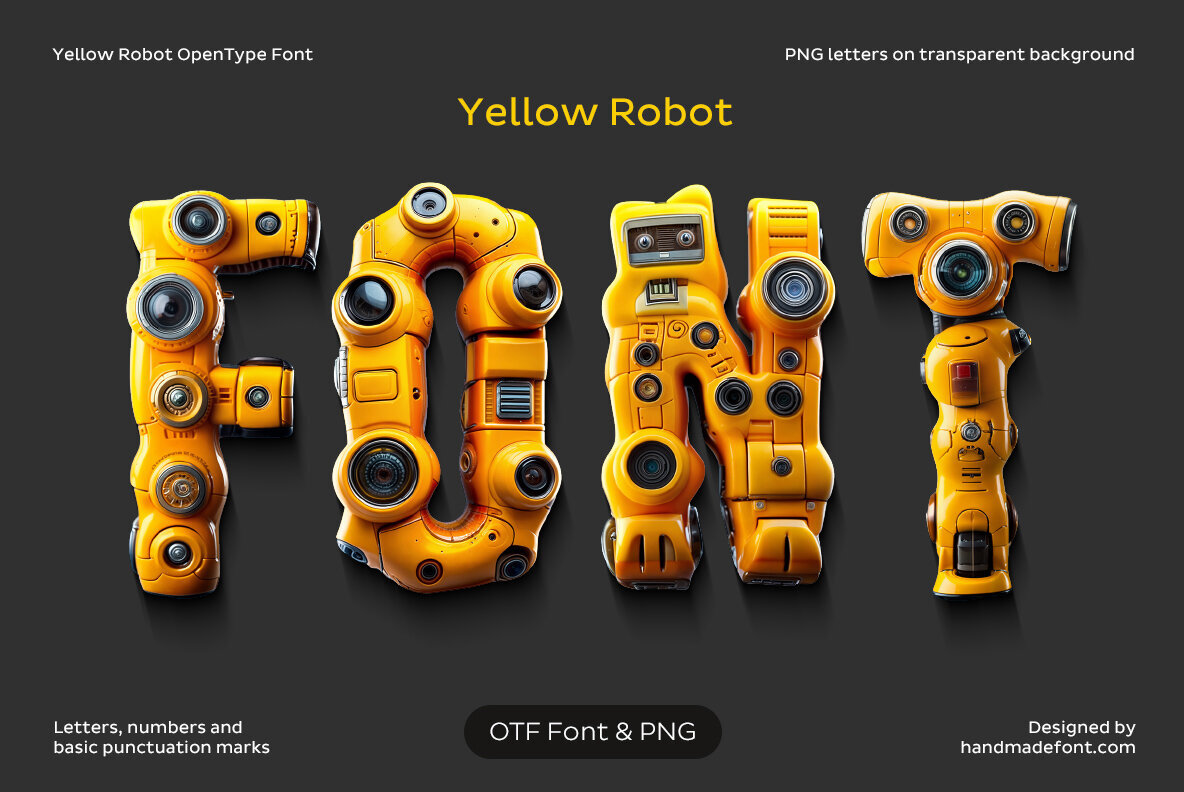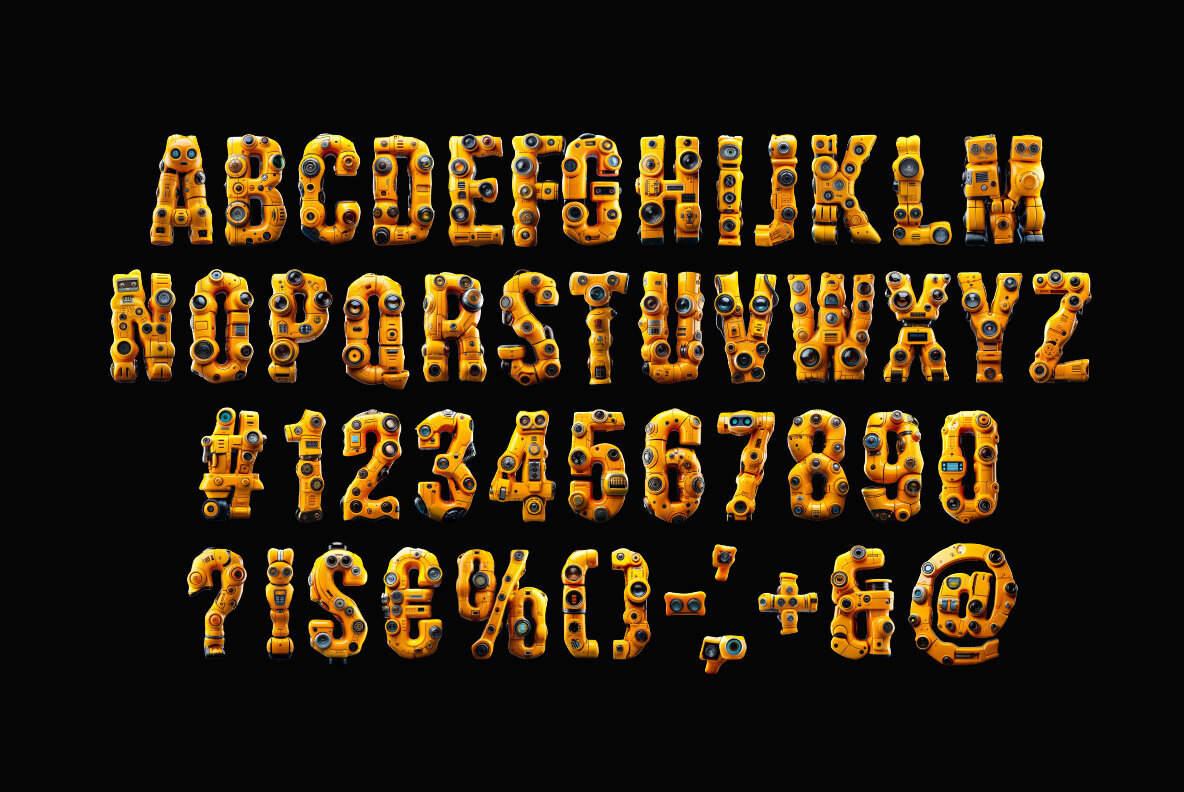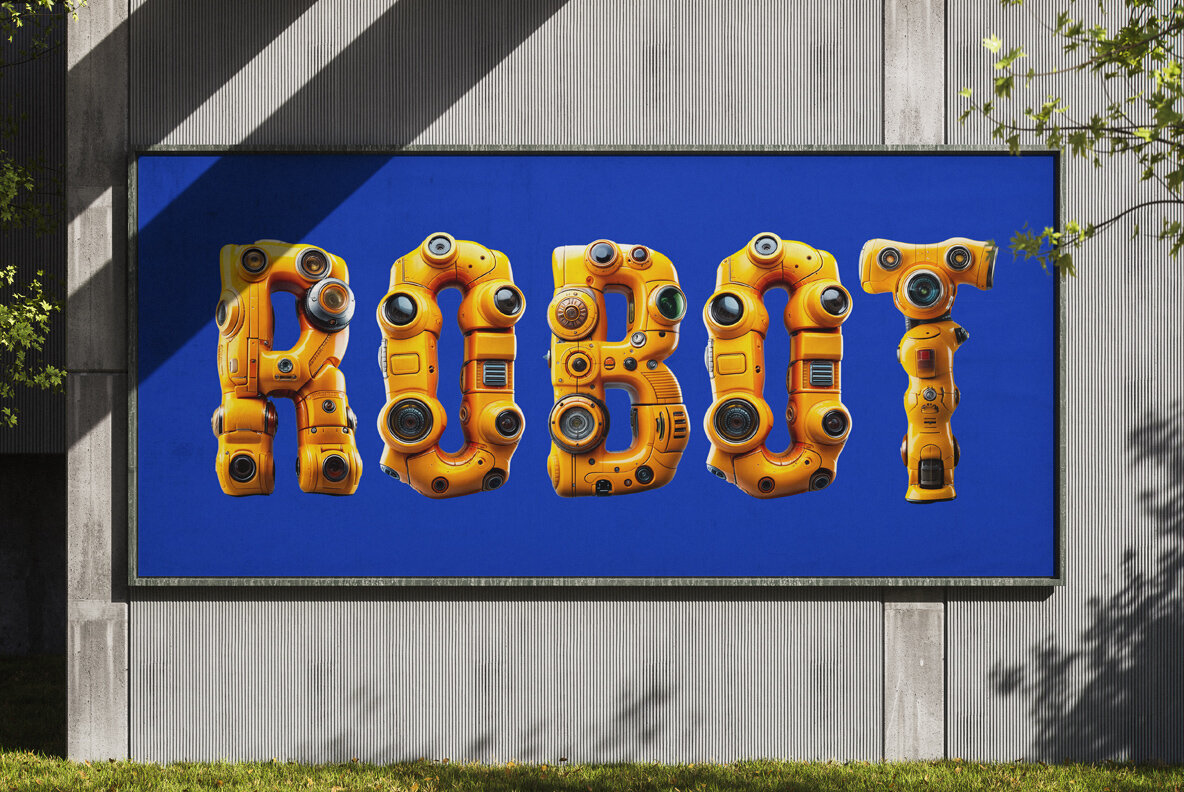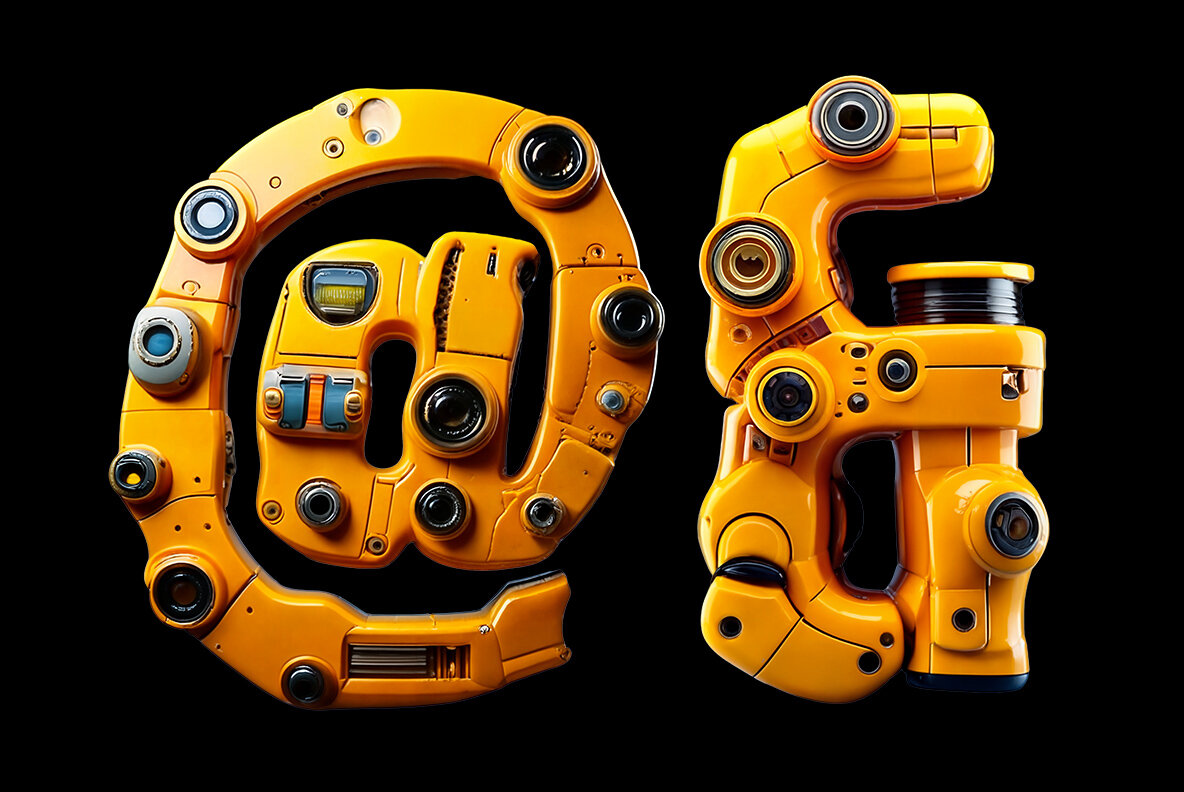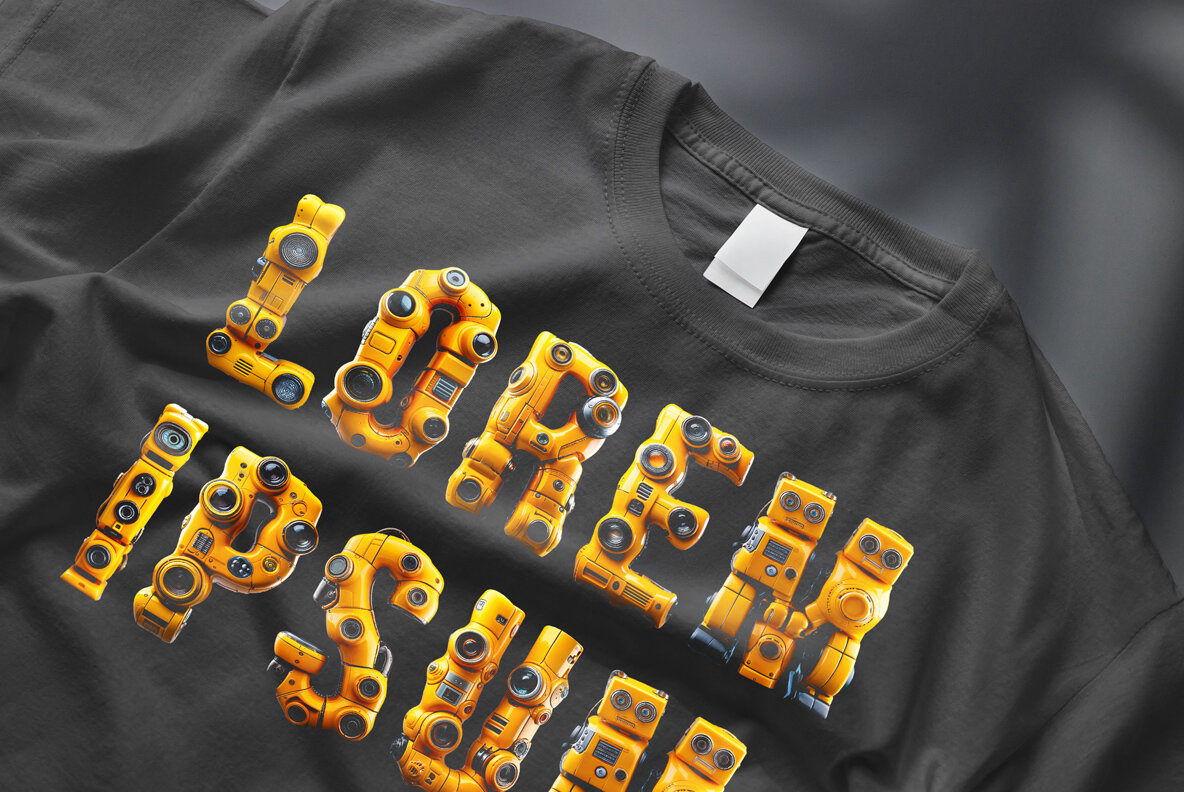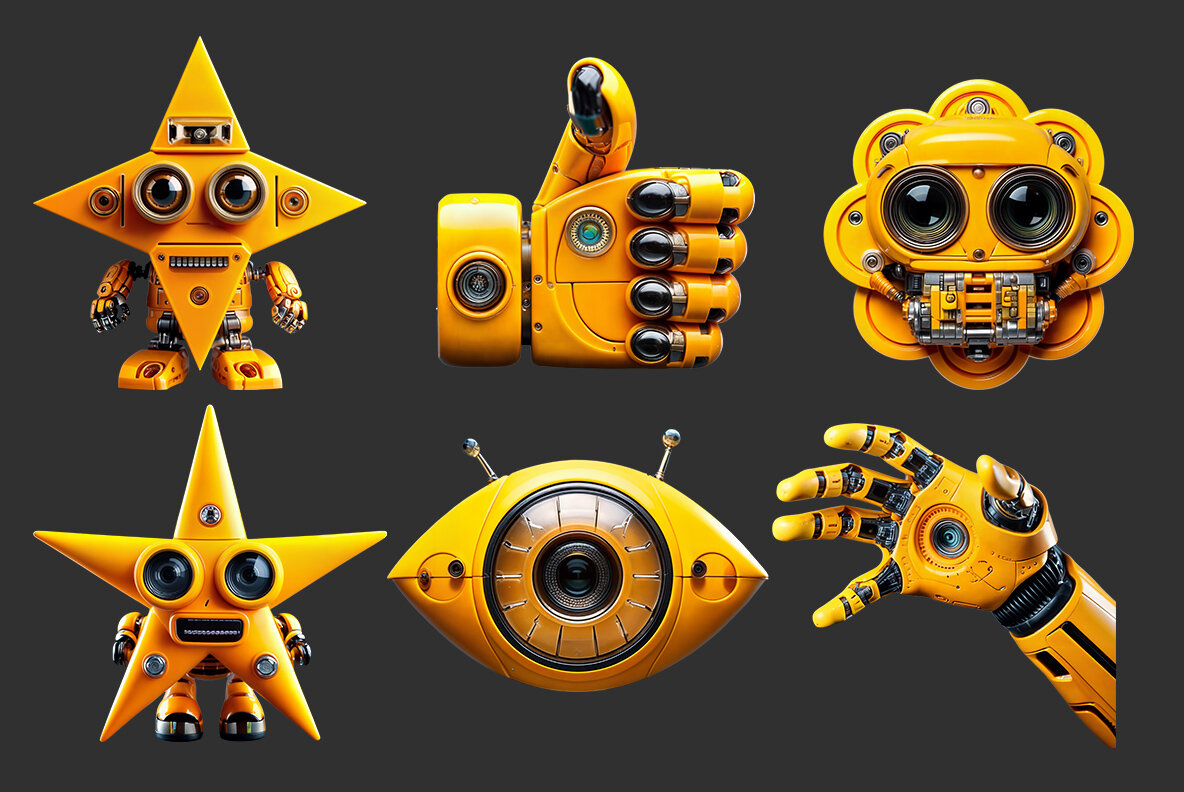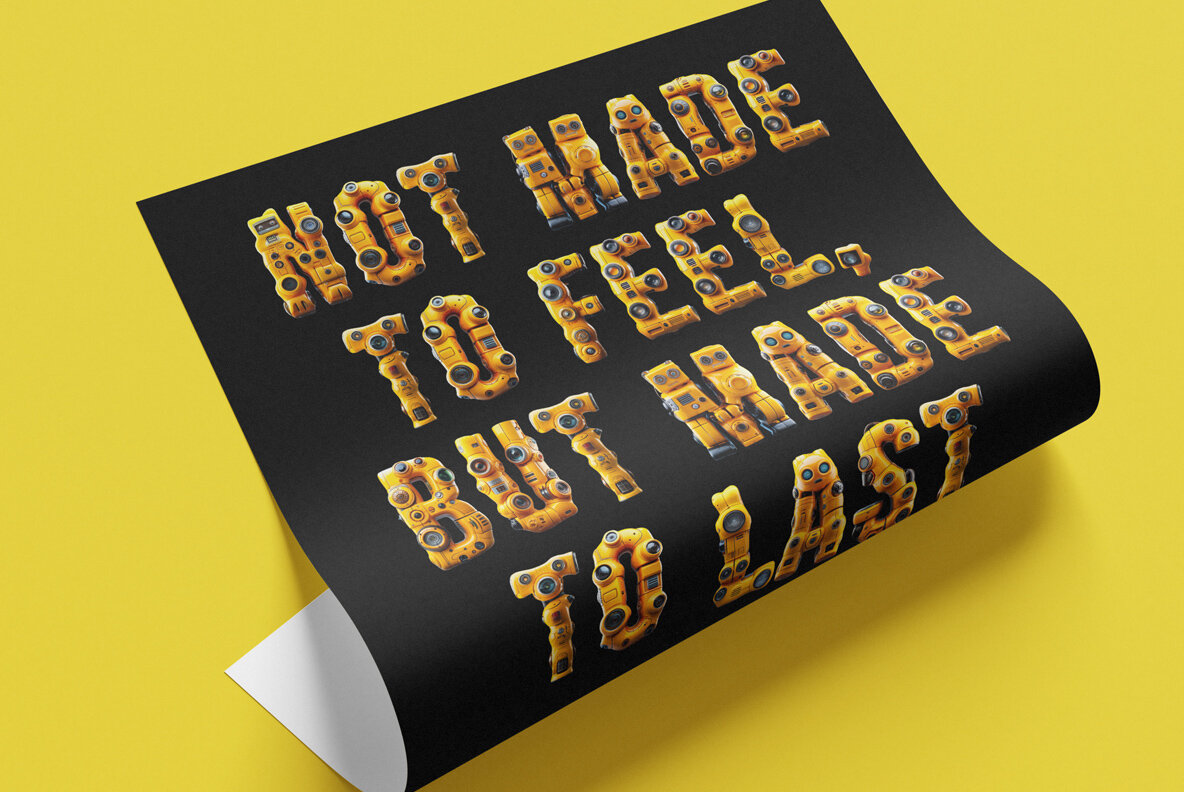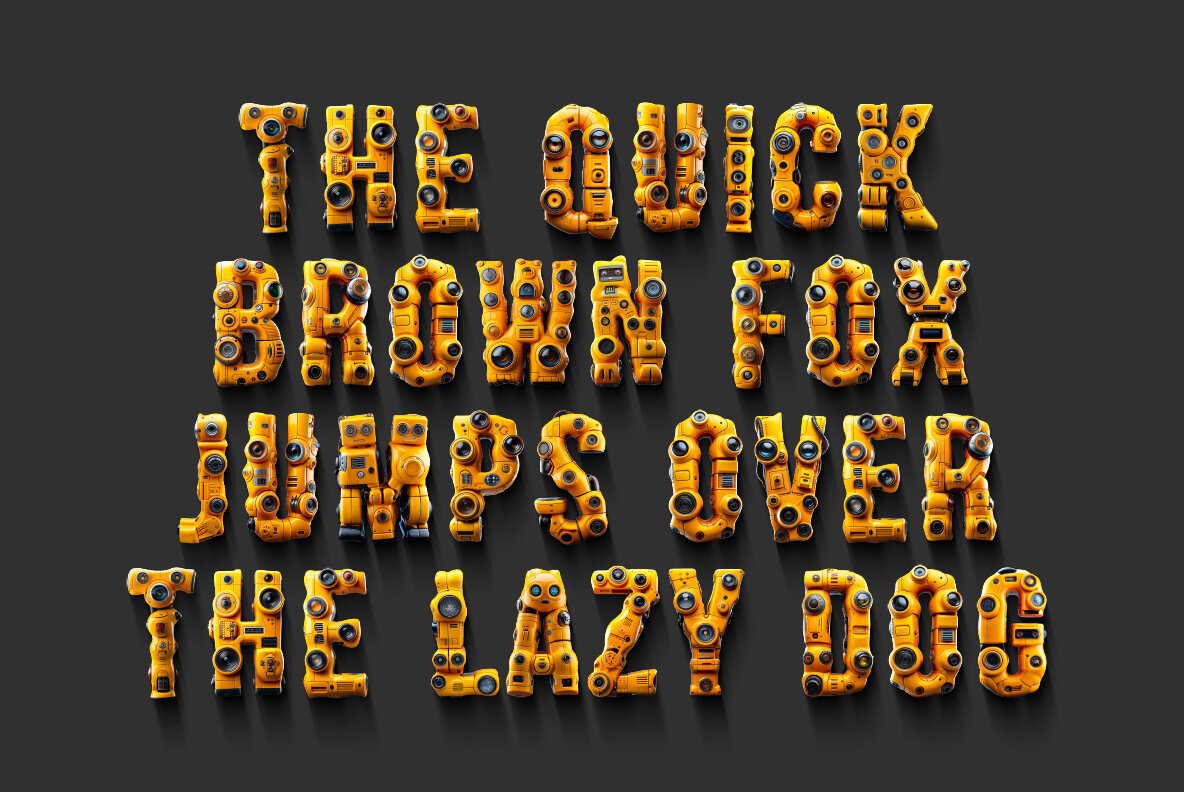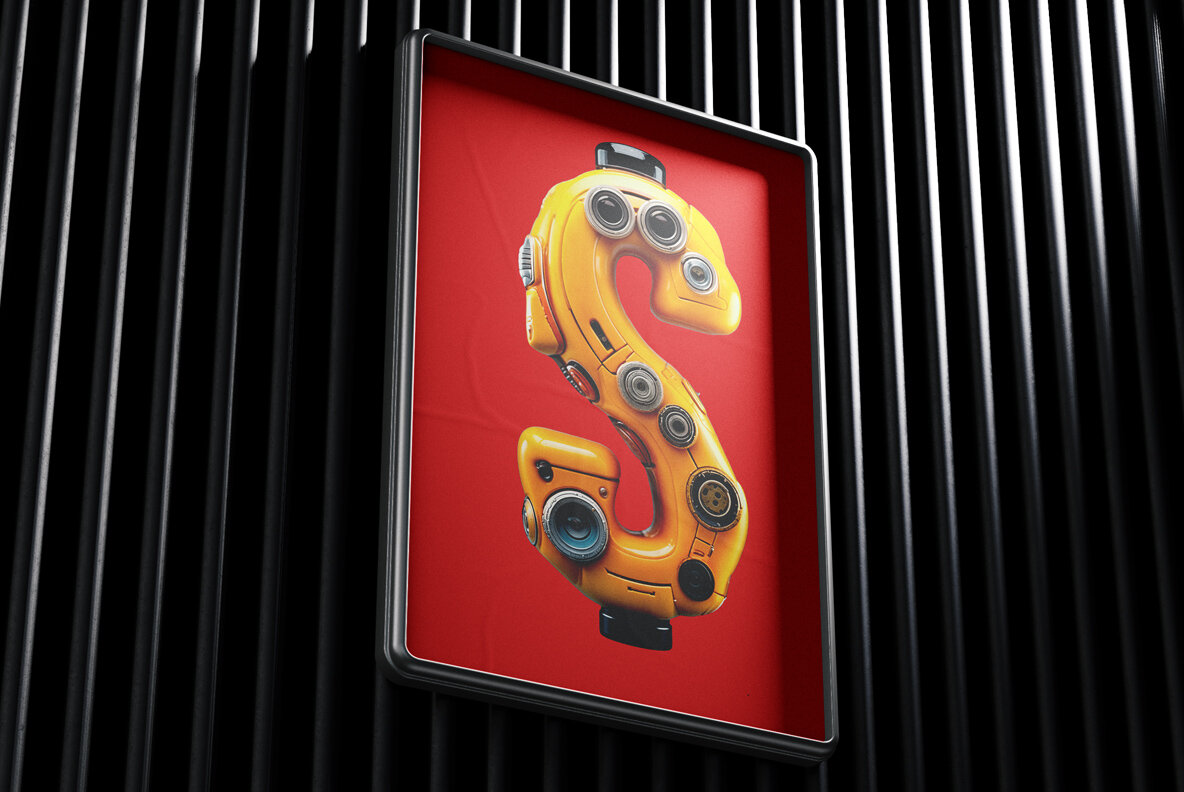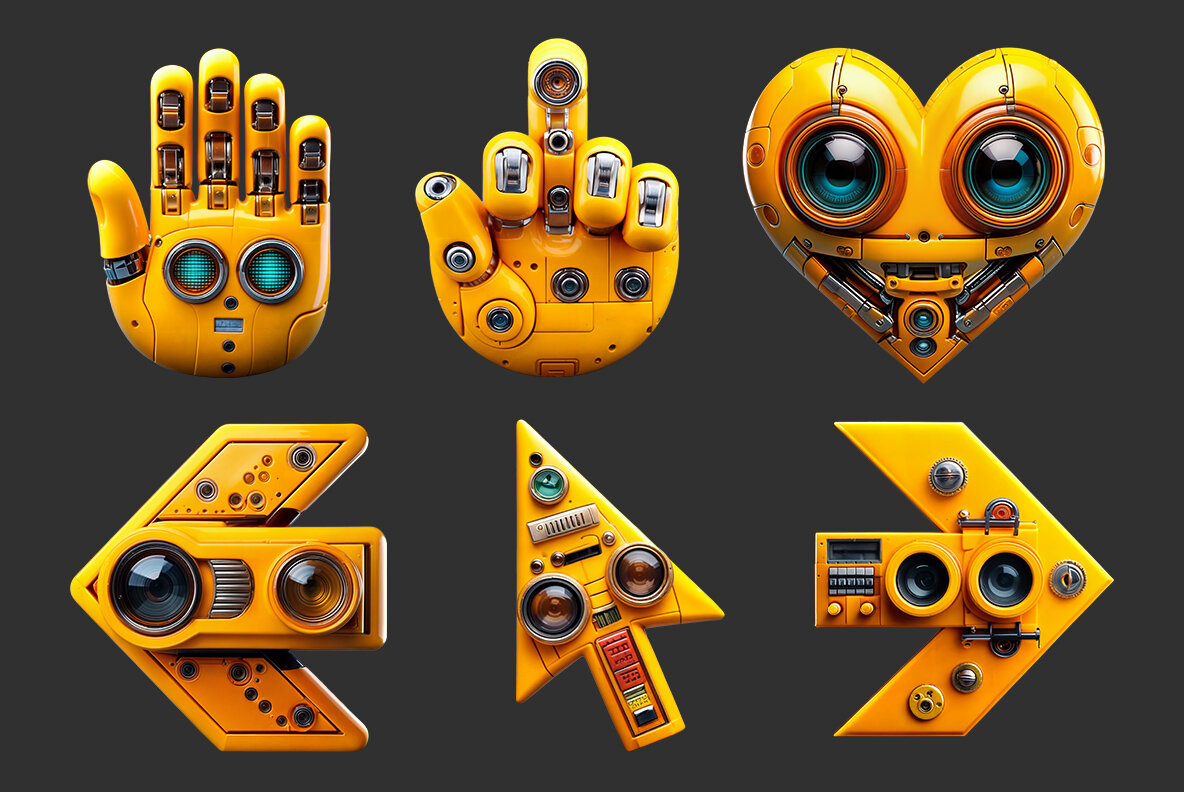
Yellow Robot Font merges futuristic design with whimsical engineering, creating an engaging alphabet where each letter becomes a quirky bot. Crafted from glossy yellow panels, sleek sensors, and shiny mechanical joints, this font is buzzing with energy and ready to add character to your communication. Ideal for tech events, kids’ robotics workshops, and sci-fi games, it injects a punch of mechanical magic into any project. With Yellow Robot, your words do more than communicate—they charm and captivate. While the OpenType-SVG format may limit extended punctuation and language support, all characters and accents are available as individual PNG files for easy integration.Yellow Robot SVG: Futuristic Fun in Every Character